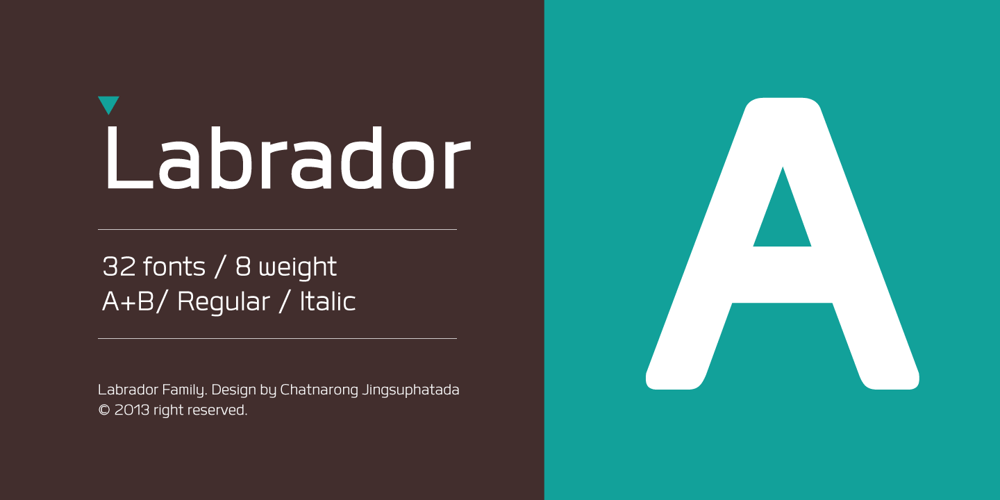
Labrador
Labrador font
Labrador Font Family was designed by Chatnarong Jingsuphatada and published by Typesketchbook. Labrador contains 32 styles and family package options. Labrador is a sans-serif and proportional font designed in 2013 by Chatnarong Jingsuphatada. A regular member of the Labrador font family, this is a elegant, modern, thin, rounded and clean typeface.